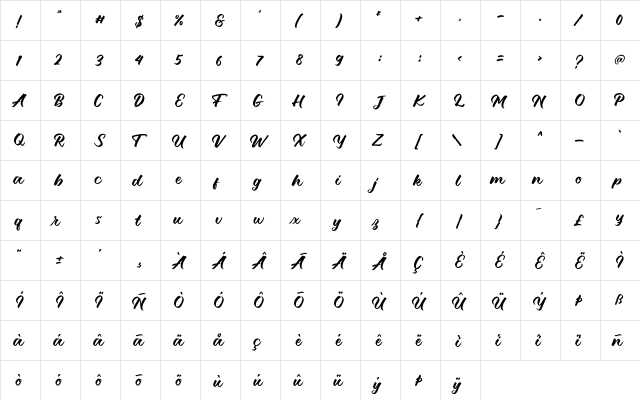
Debutan Brush Script Regular
Design Context for Debutan Brush Script Typeface
Debutan Brush Script brings a calligraphic fluidity to the page — its connecting strokes and expressive curves give it an unmistakably human quality.
Font Pairing: Combine Debutan Brush Script with a simple geometric sans for maximum contrast — the tension between flowing curves and clean structure is a classic typographic pairing.
Pro Tip: Pair Debutan Brush Script with a clean sans-serif for supporting text. The contrast between fluid script and geometric structure creates an elegant typographic hierarchy.